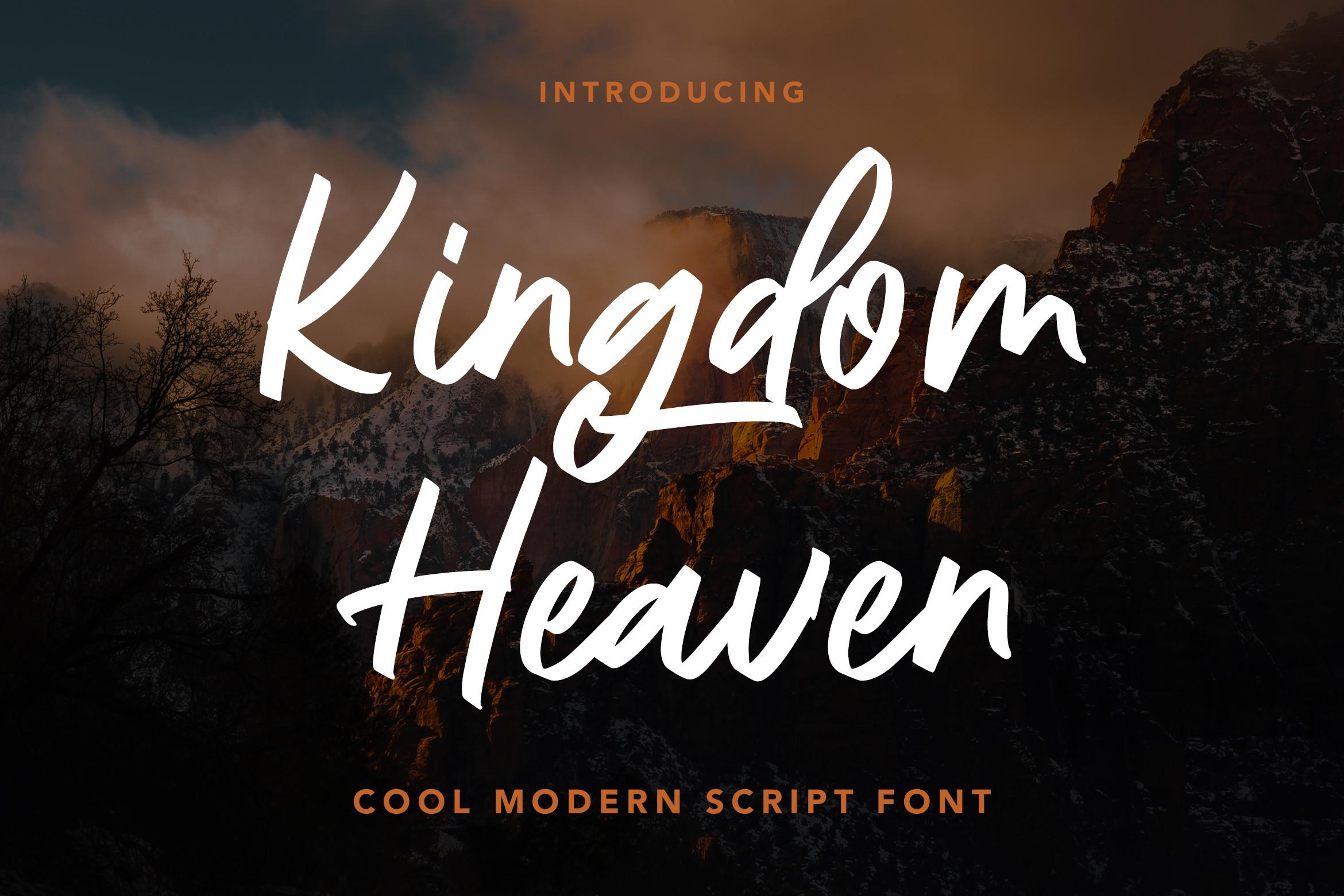
Kingdom Heaven Font Description
Kingdom Heaven is a cool and modern script font with distinctive handwritten characters. It is perfect for branding projects, logos, wedding designs, media posts, advertisements, product packaging, product designs, labels, photography, watermarks, invitations, stationery, and any project that needs a handwritten touch.